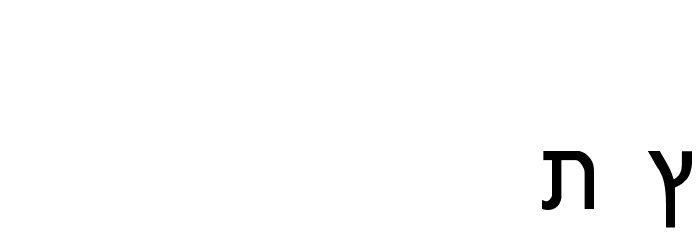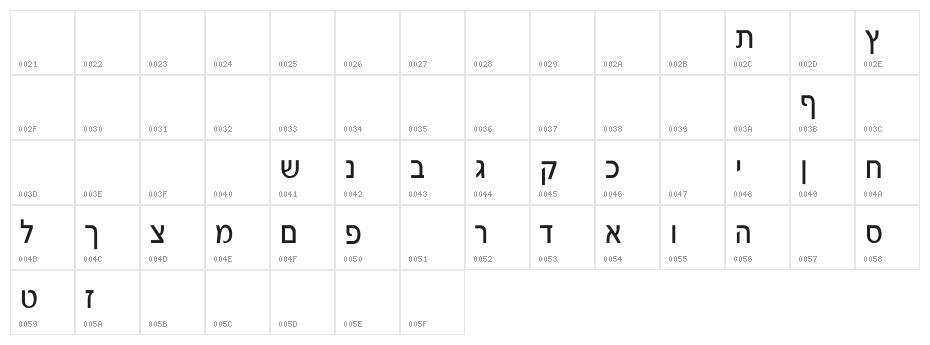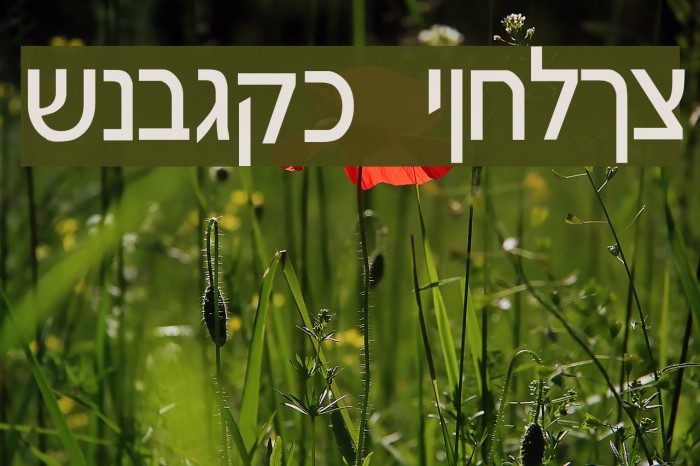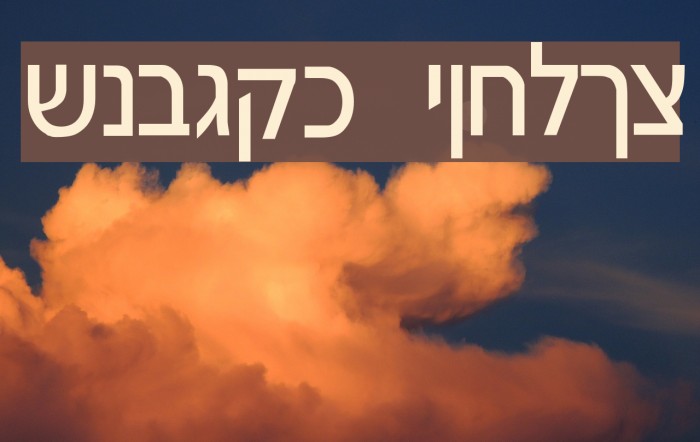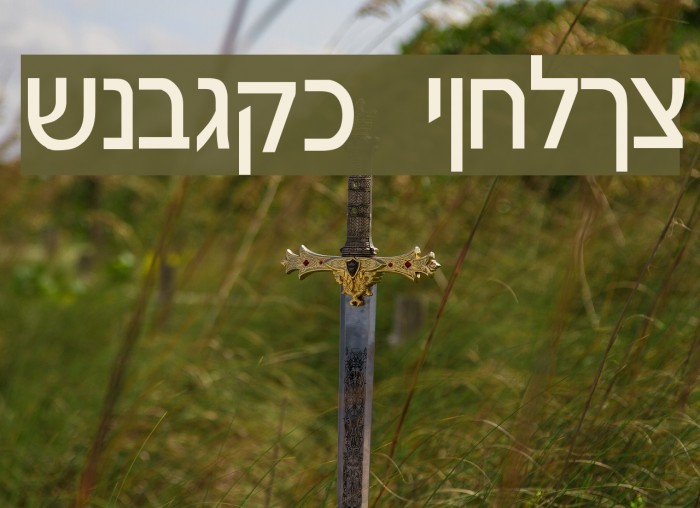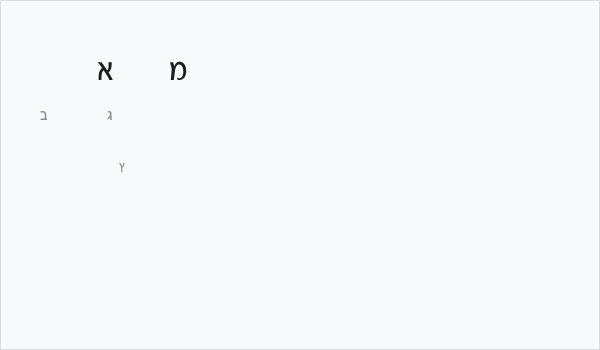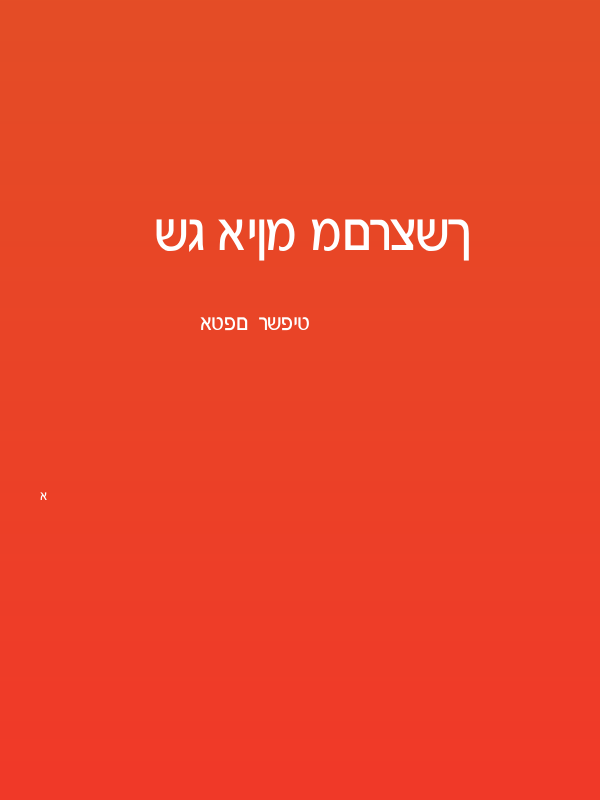
Gad Thin Normal Font
Gad Thin Normal Description
This font features a clean and modern design with a thin weight, making it suitable for a variety of uses. The characters are well-defined with a consistent stroke width, providing a sleek and professional appearance. The spacing between characters is balanced, ensuring readability while maintaining a stylish look. This font is particularly effective in conveying a contemporary and minimalist aesthetic, making it ideal for projects that require a subtle yet impactful typeface. Its simplicity and elegance make it versatile for both digital and print media.
| Proposed Projects | Ideal for branding, web design, editorial layouts, and minimalist posters. |